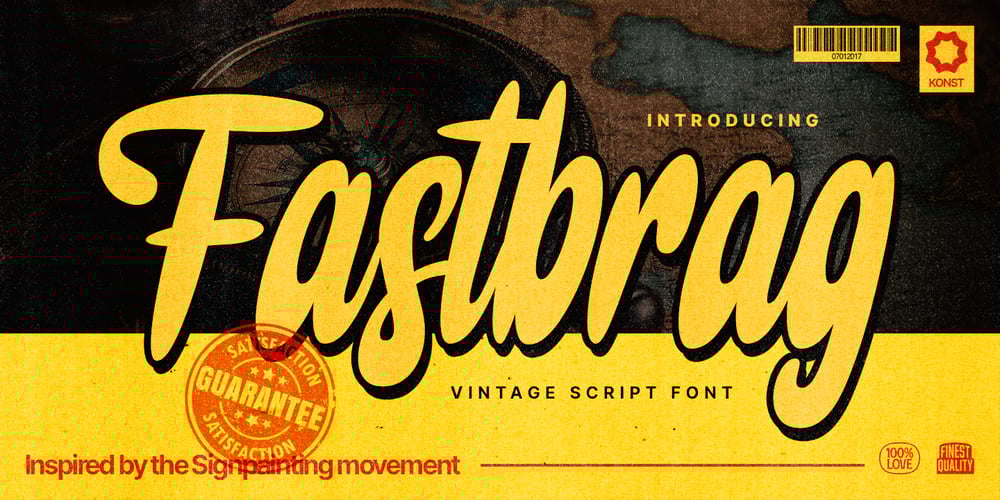
Fastbrag Font Family was designed by Abdilah and published by Konstantine Studio. Fastbrag contains 1 styles and family package options. Fastbrag was inspired by the vintage sign painting culture in the early 1900s. We talk about visuals from the building-sized messages, billboards, storefronts, windows, doors, and menus.A shot to deliver the heritage and historical vibes of storytelling, and branding. To give a strong persona and character to your graphic design projects.